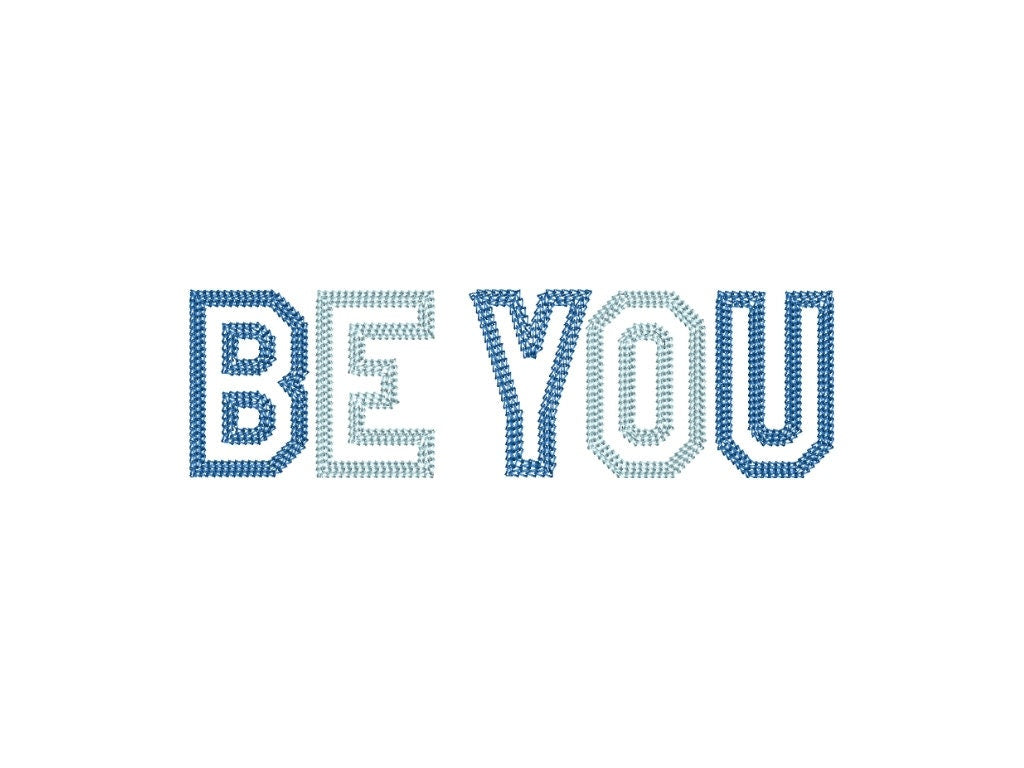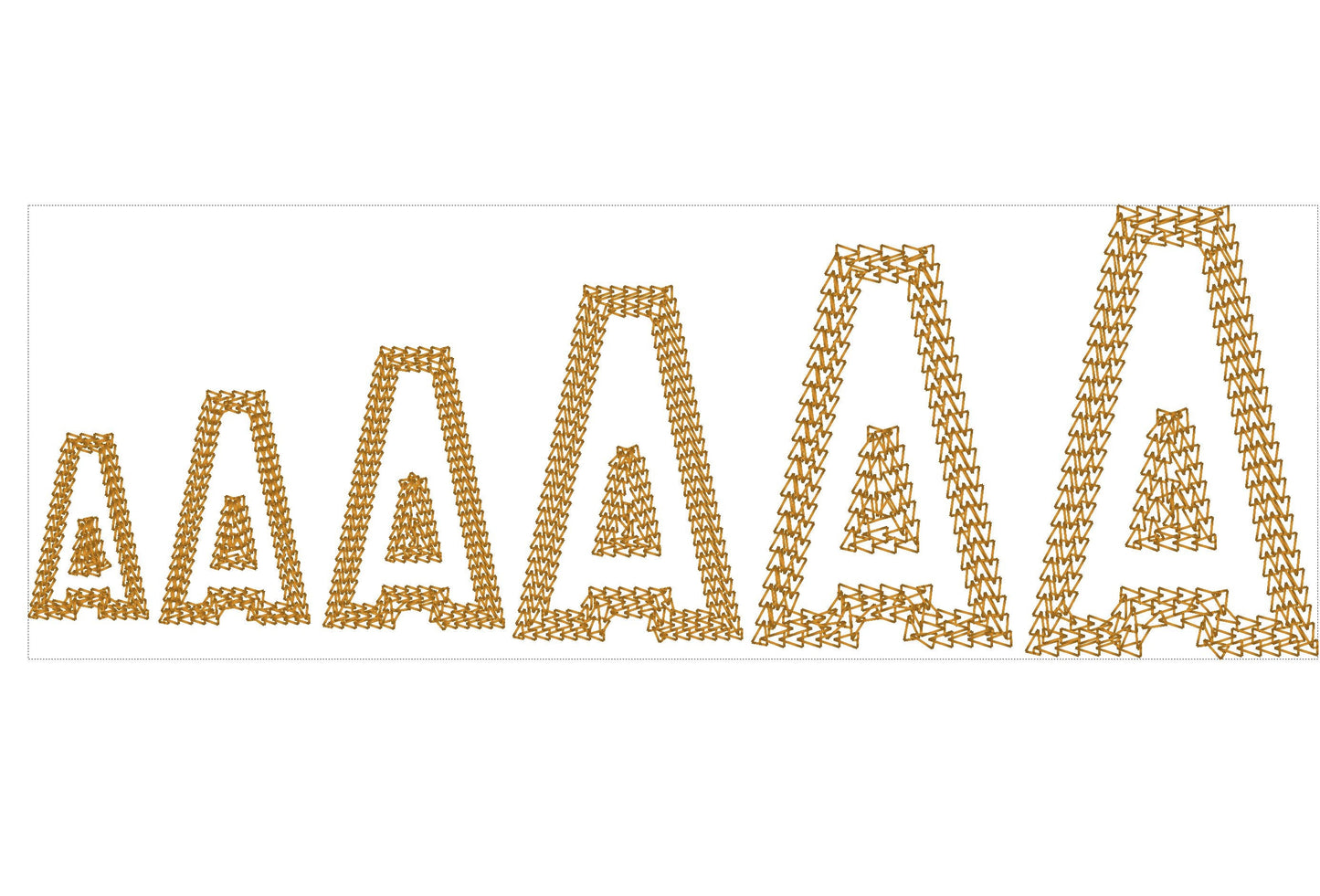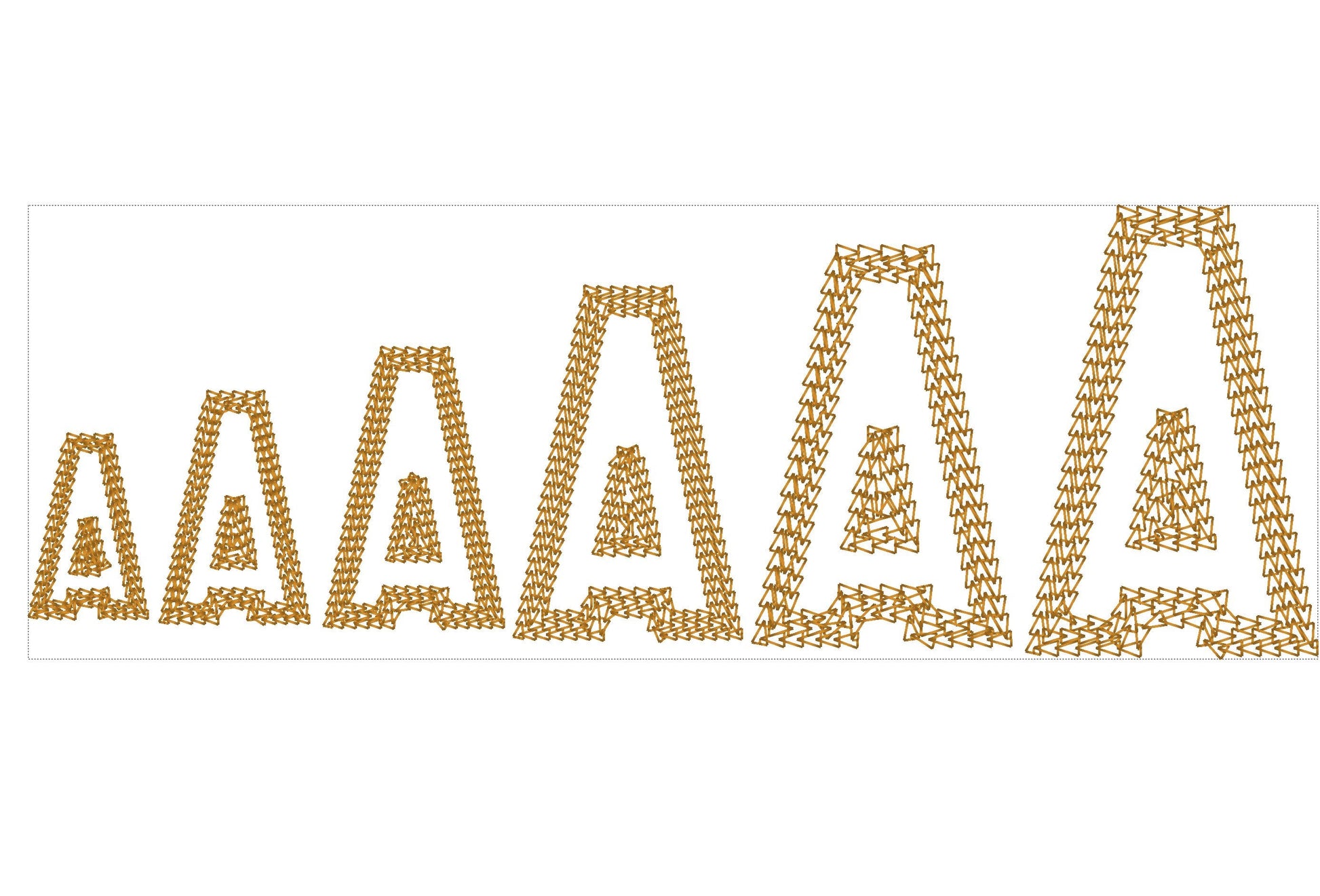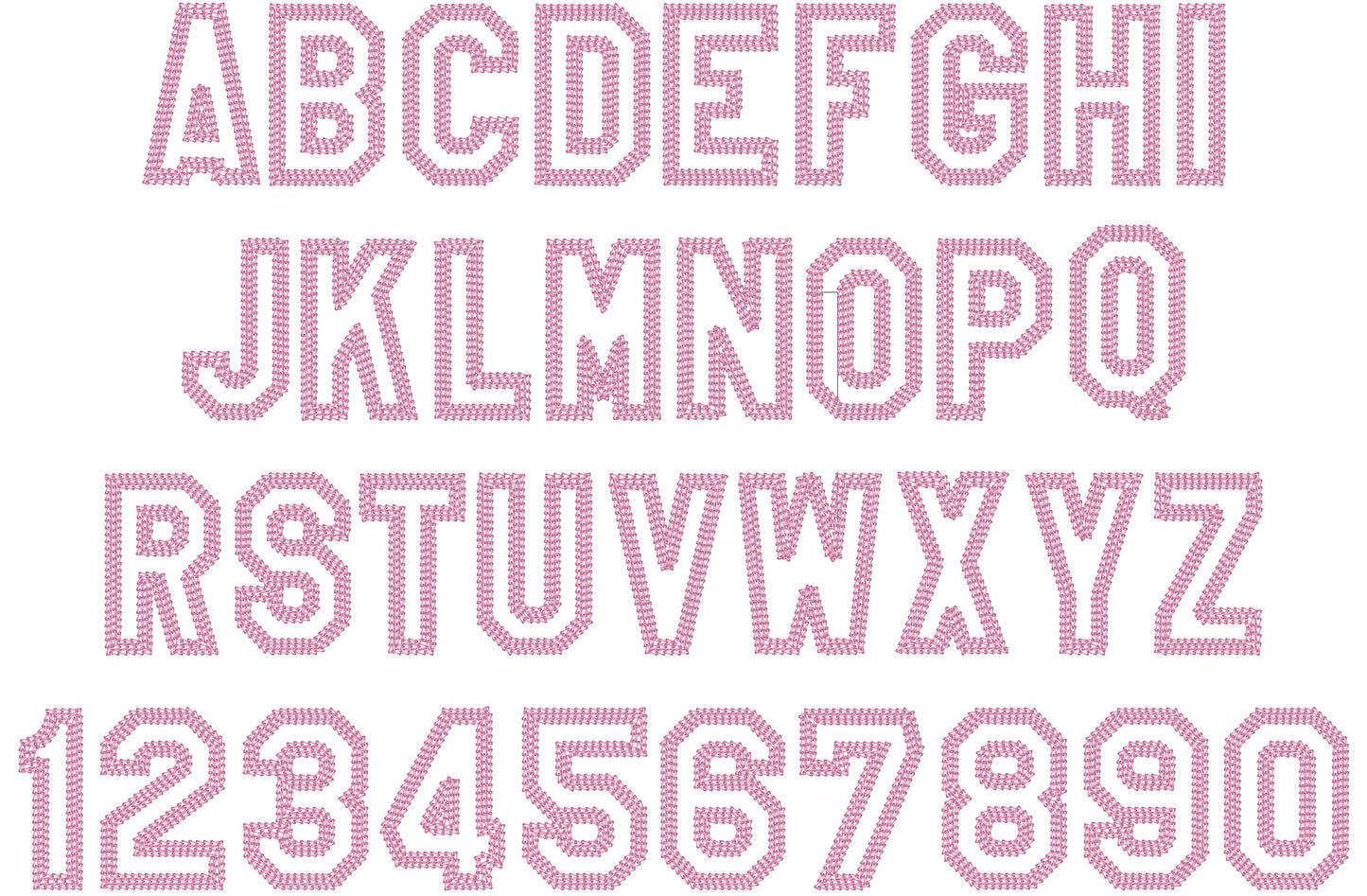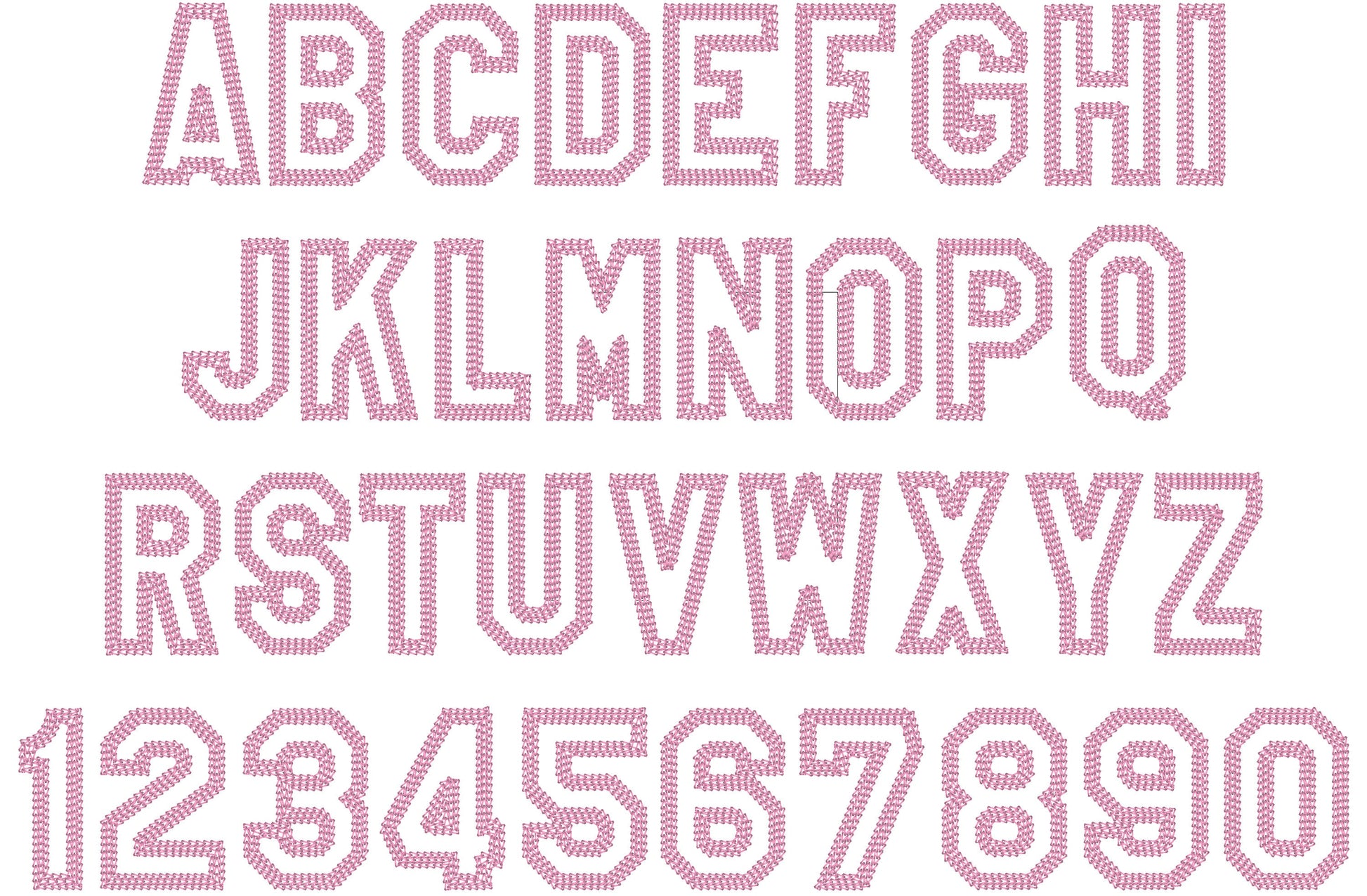
Or click to open the linkA block sport font in wide chain stitch outline. Great for team shirts, sweatshirts, jackets and caps.
Uppercase letters A to Z and numbers 0 to 9. Six sizes: 1.5, 2, 2.3, 3, 3.3 and 3.7 inches.